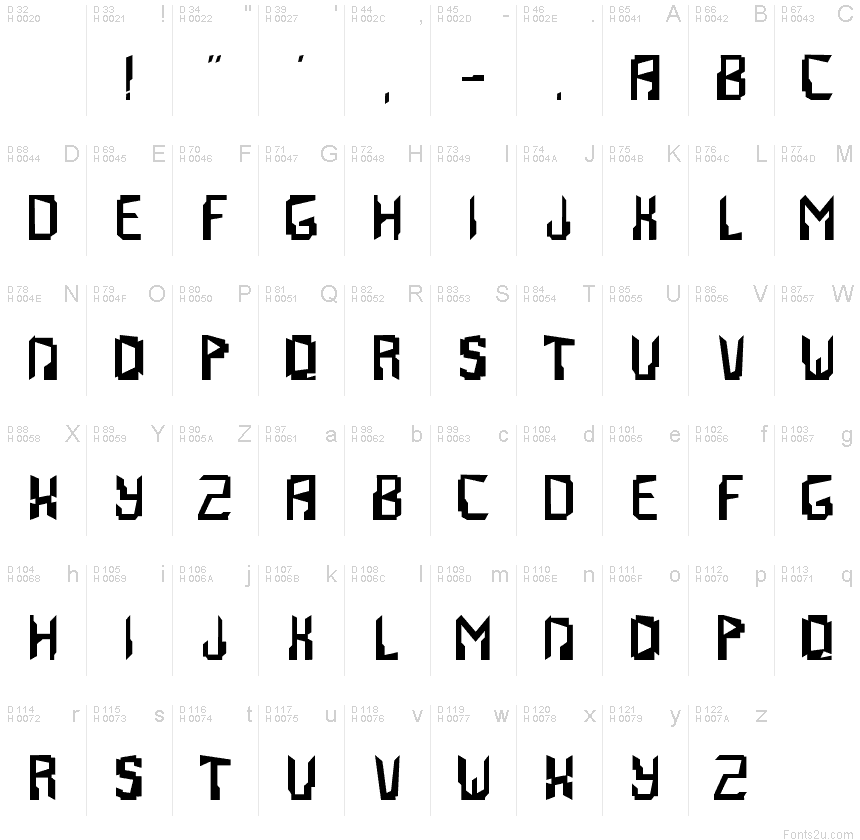
Abstrakt
Abstrakt is a visually striking display font that immediately commands attention. Designed by Paul Reid, this distorted typeface exudes a bold, edgy aesthetic. The letters appear to be fractured and fragmented, creating a dynamic, almost glitchy effect that adds a sense of movement and energy to the design. This unconventional style makes Abstrakt an excellent choice for attention-grabbing headings, logos, and other branding elements where a bold, disruptive visual impact is desired.
Its versatility extends to various applications, from editorial layouts to packaging and digital interfaces, where it can effectively inject a dose of visual excitement and a modern, cutting-edge sensibility.